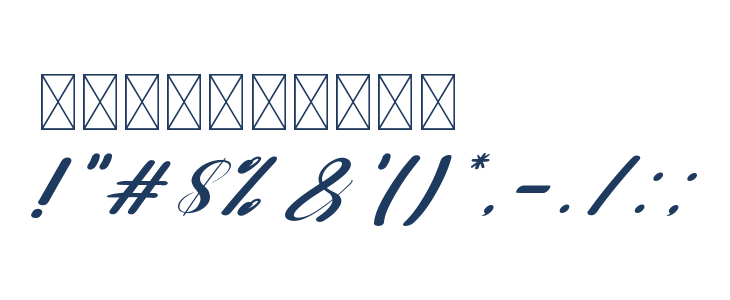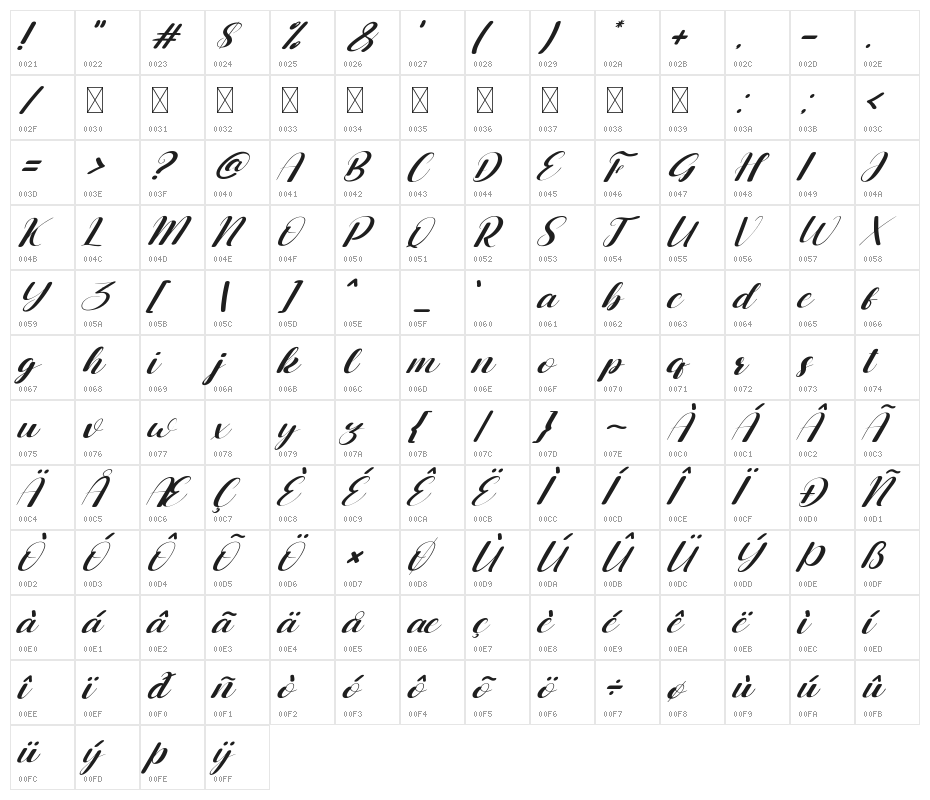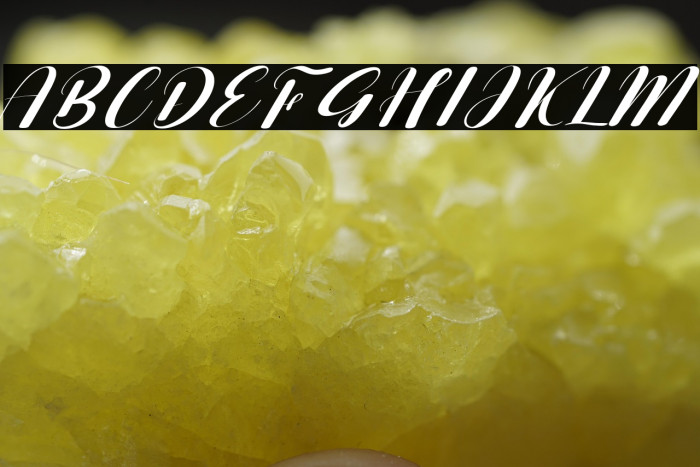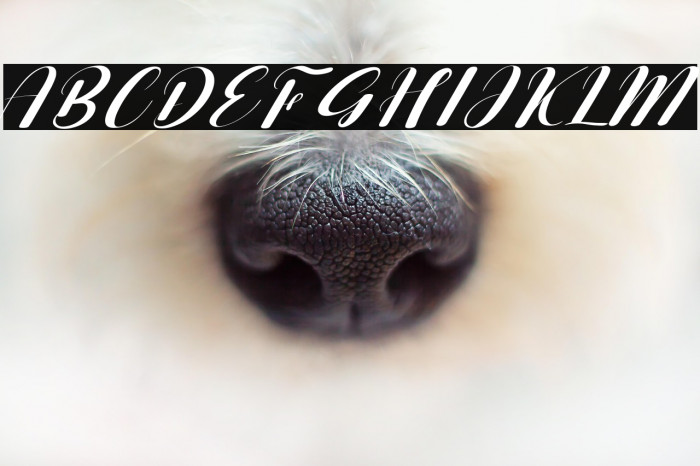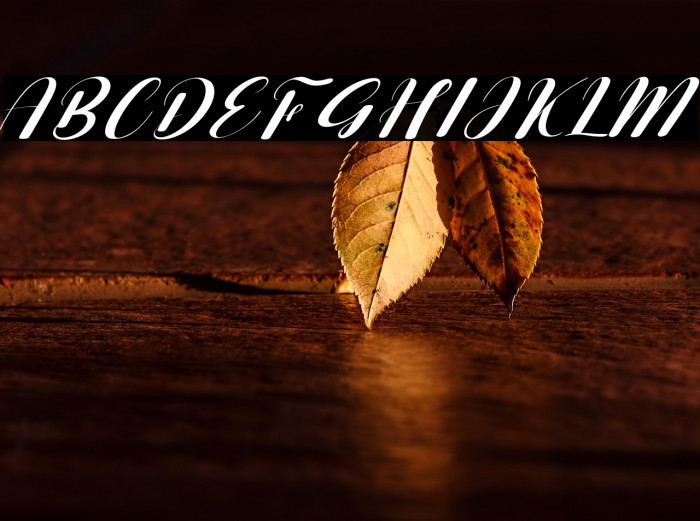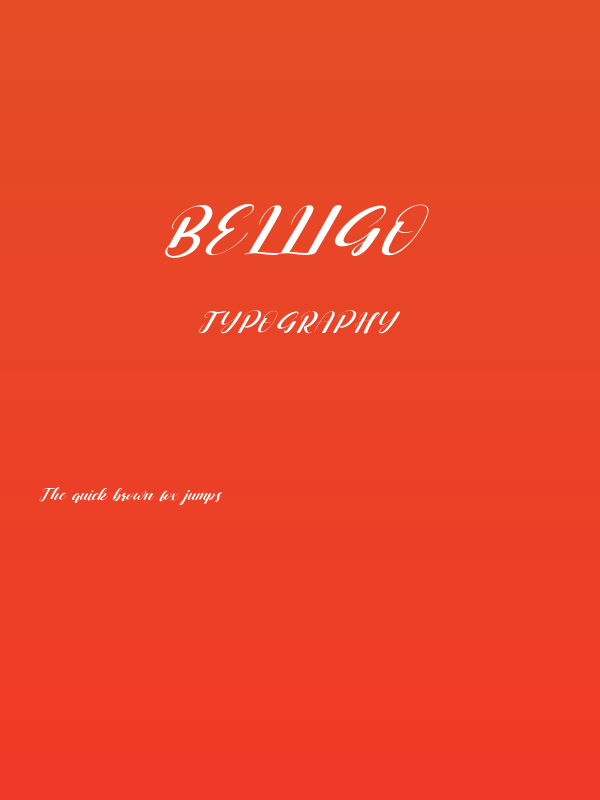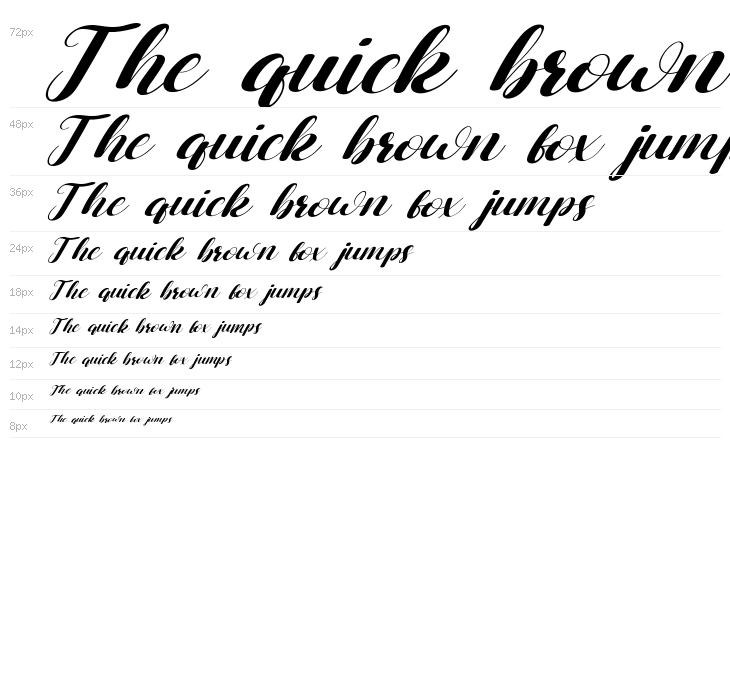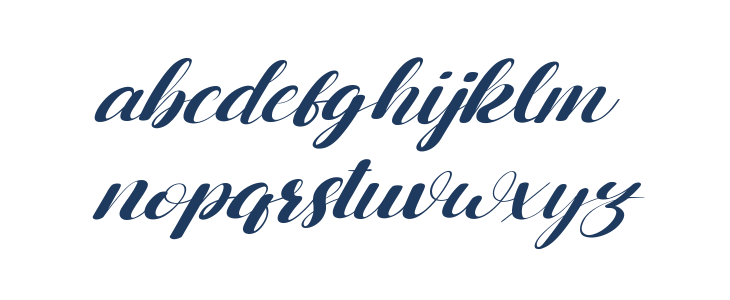
Belligo Font
Belligo Description
This font features an elegant and flowing script style, characterized by its smooth, cursive letterforms. The uppercase letters are particularly ornate, with sweeping curves and flourishes that give them a sophisticated appearance. The lowercase letters maintain a consistent flow, enhancing readability while retaining a stylish flair. The numerals and special characters are designed to match the overall aesthetic, ensuring a cohesive look across all text. This font is ideal for projects that require a touch of elegance and sophistication.
| Overall Style | Elegant, Sophisticated |
| Use Case | Logos, Invitations, Branding |
| Proposed Projects | Ideal for wedding invitations, elegant branding, luxury product packaging, and sophisticated event posters. |